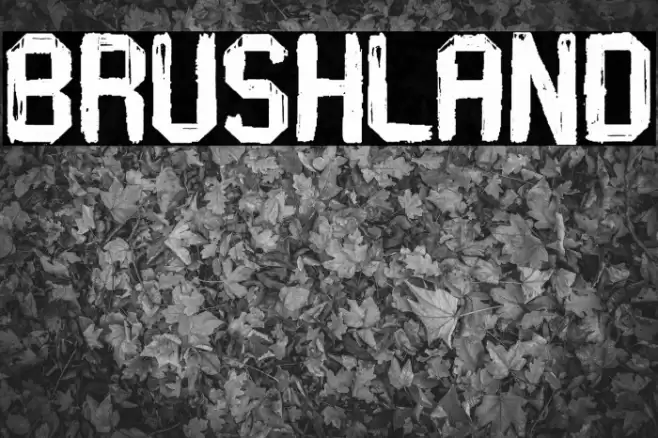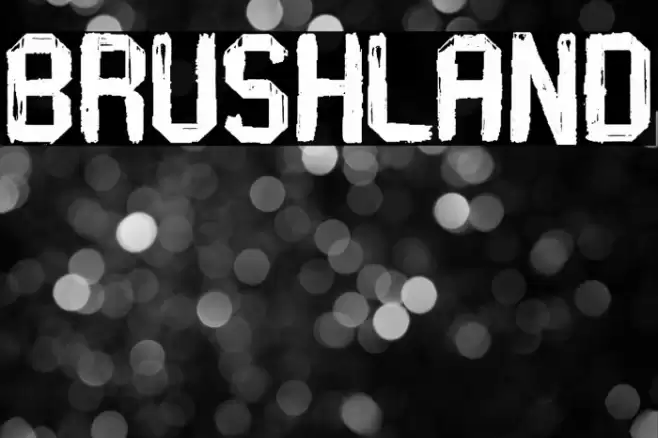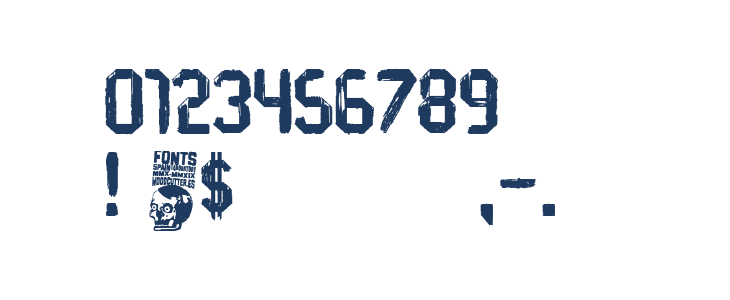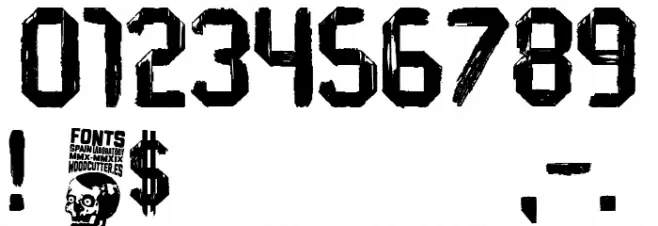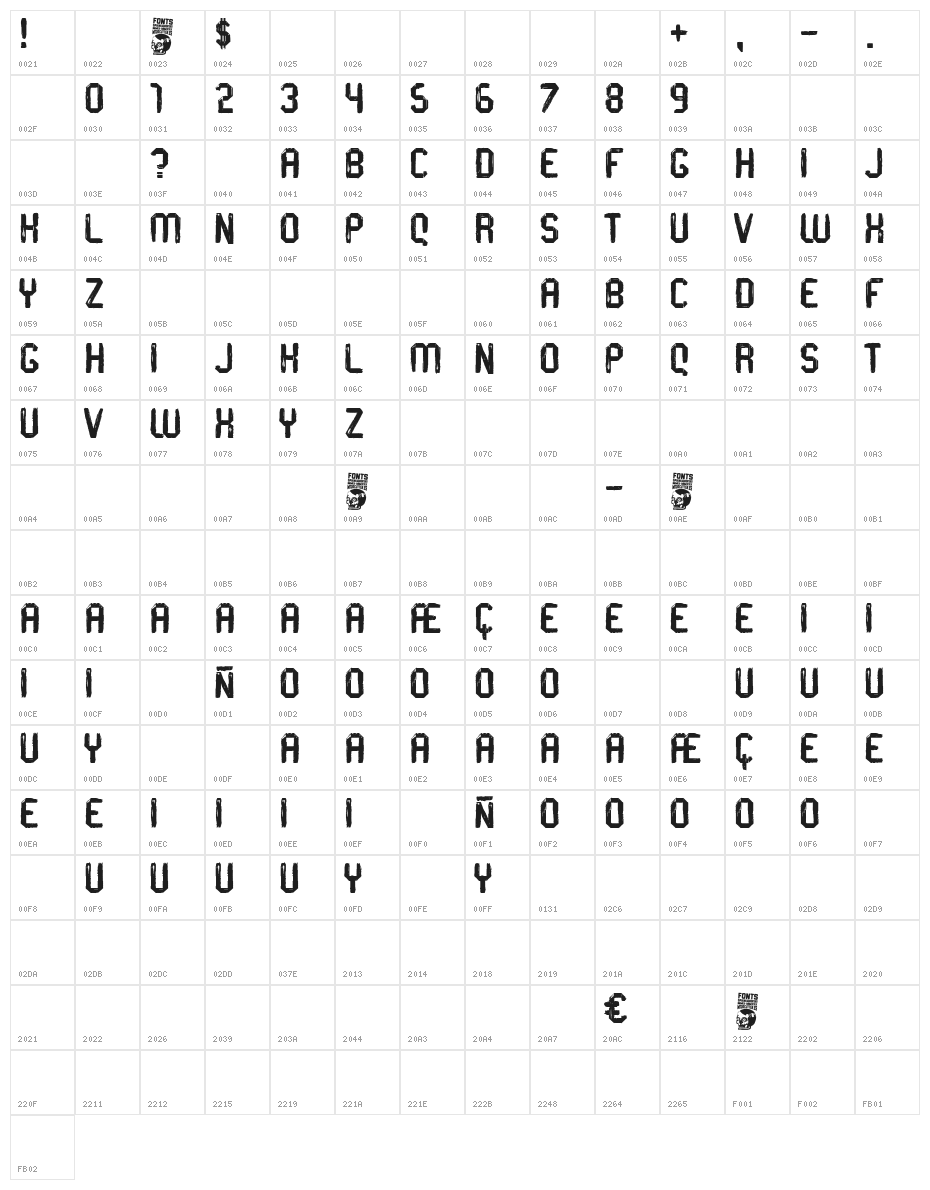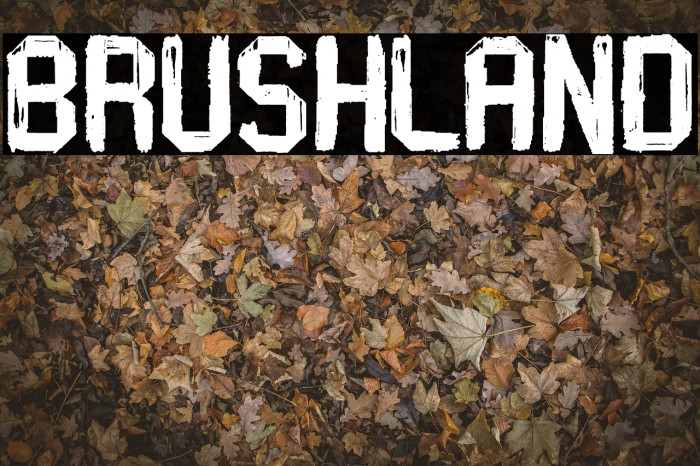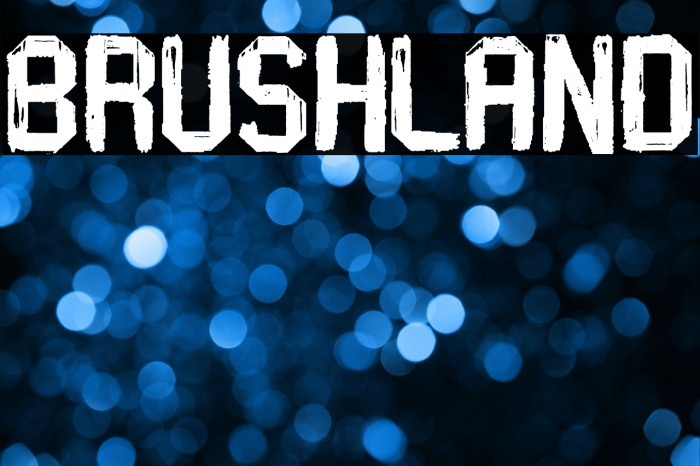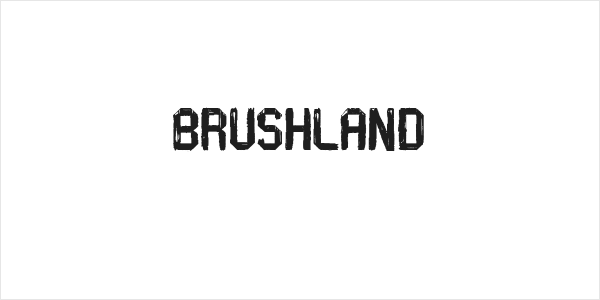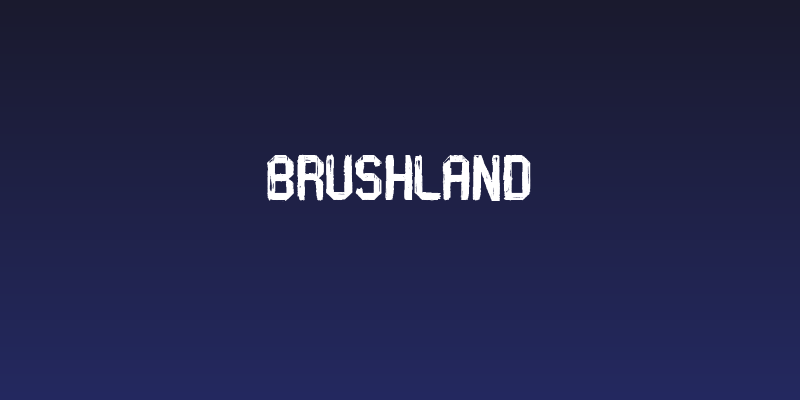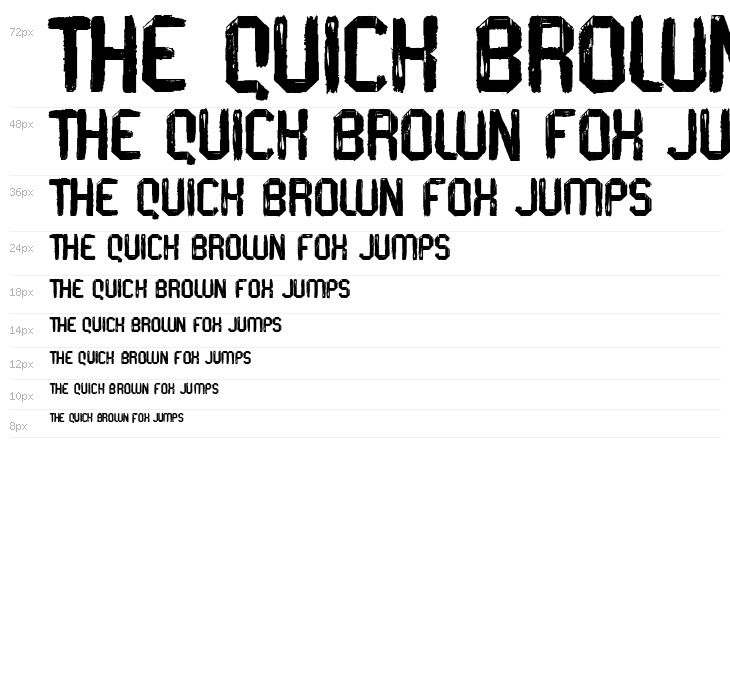
Brushland Font
Brushland Description
This font exhibits a rugged, distressed style with a brush-like texture, giving it a raw and edgy appearance. The uppercase and lowercase letters maintain a consistent height, contributing to a uniform look. The characters are bold and impactful, with uneven edges that suggest a hand-painted or graffiti-inspired aesthetic. The numbers and special characters follow the same stylistic approach, ensuring cohesion across all elements. This font's unique style makes it suitable for projects that require a bold statement or a creative, artistic touch.
A bold, distressed brush-style font with a rugged, artistic flair from Uncategorized fonts.
- Proposed Projects: Ideal for posters, album covers, streetwear branding, and creative advertising campaigns.